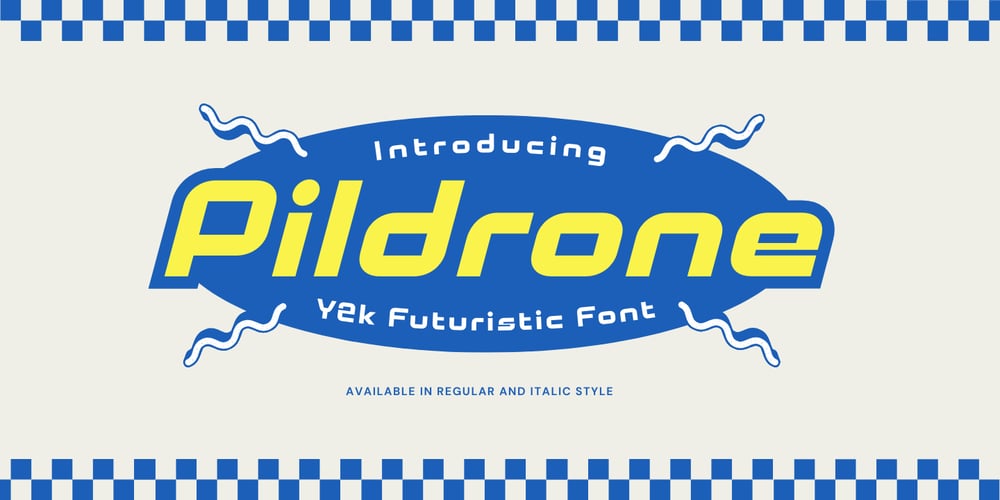
Pildrone Font Family was designed by Muhamad Yusron Billah and published by Sronstudio. Pildrone contains 2 styles and family package options. Introducing “Pildrone,” a cutting-edge Y2K futuristic font designed to elevate your creative projects. This font captures the sleek and innovative spirit of the early 2000s, perfect for technology-themed designs, sci-fi visuals, and modern branding. Available in two versatile styles—Regular and Italic—”Pildrone” offers the flexibility to make your text stand out with a unique, futuristic touch. Add a bold, forward-thinking edge to your work with “Pildrone.”Features:- Regular & Italic Version- Numeral & Punctuation- PUA Encoded- Multilingual support- Simple Installation- Work both on Mac and WindowsThank you very much 🙂